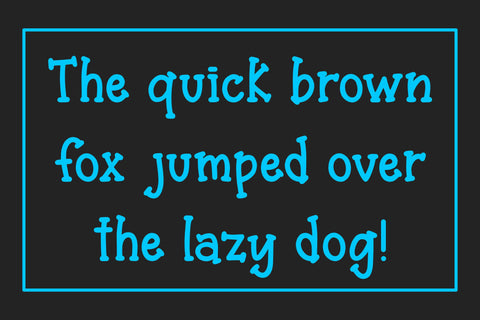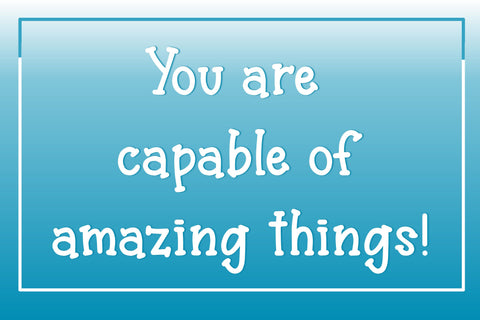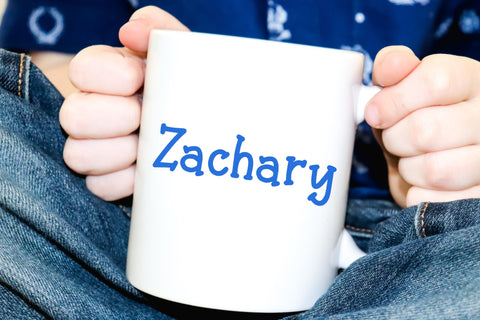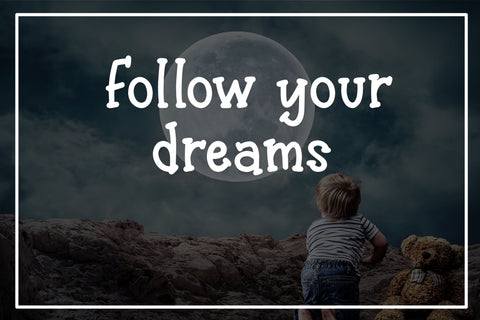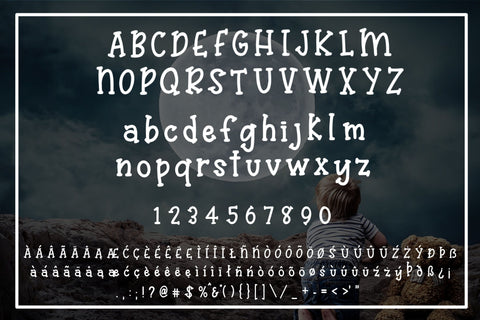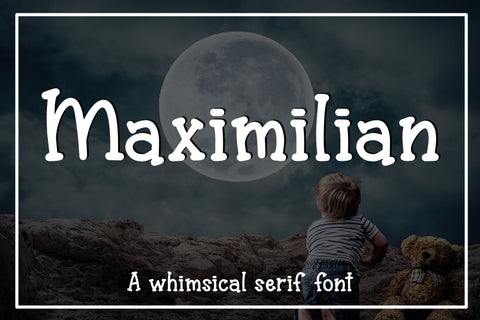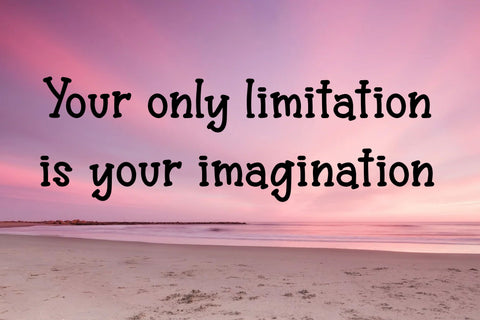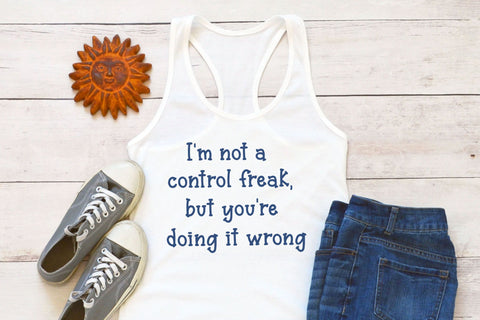
Maximilian - A whimsical serif font
Maximilian is a whimsical serif font made up of capital letters A-Z, lowercase letters a-z, numbers 0-9, accented characters and punctuation. It's perfect for cards, invitations, scrapbooking, SVG design, and more! Maximilian was designed with vinyl cutting in mind and will cut smoothly on your cutting machines.